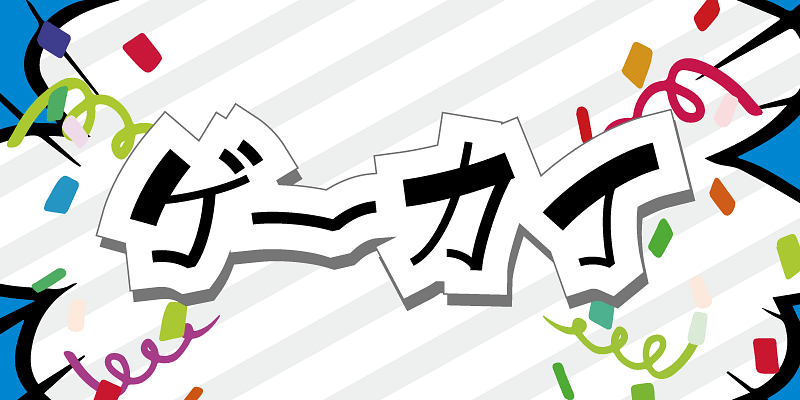
This typeface characterized by high-contrast stroke variations is based on characters designed with brush strokes. The typeface is effective especially for point-of-purchase advertising.